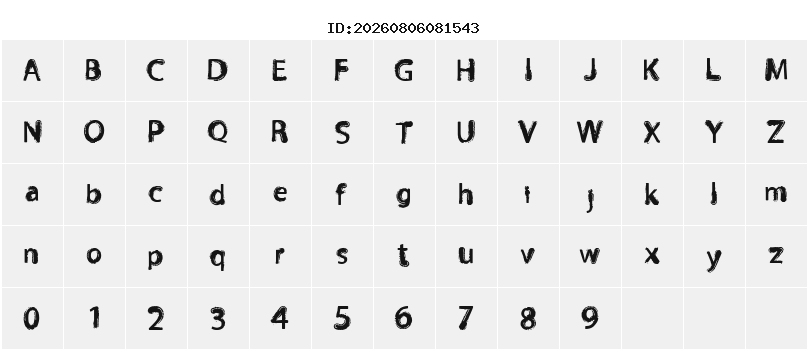
• Font Name: Orust
• Full Font Name: Orust
• Version: Orust 1.00 June 22, 2010, initial release
• Designer: AjithRindia
About Orust.ttf
Orust.ttf is a modern, elegant sans-serif font designed for ultimate readability and visual harmony. Perfect for branding, headlines, web design, and print materials.